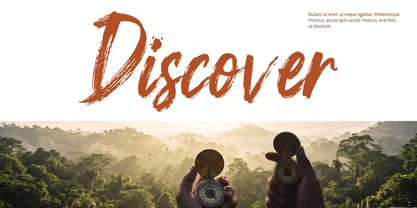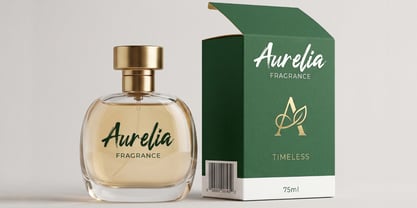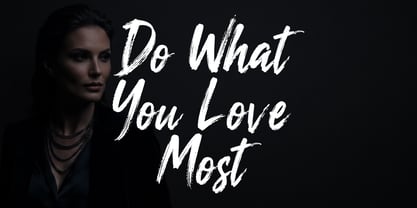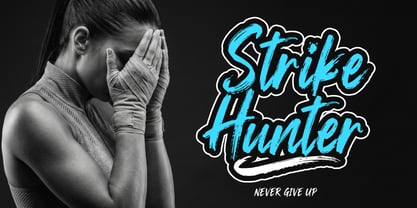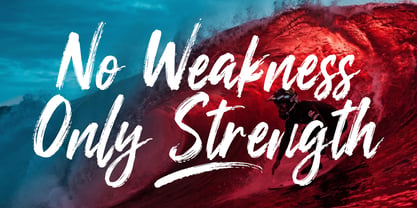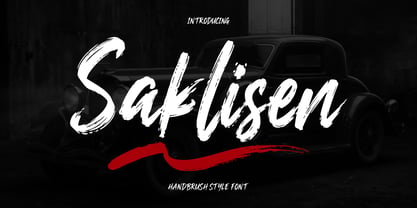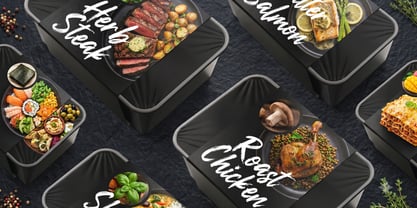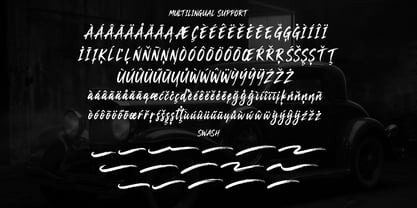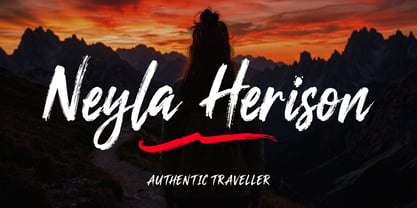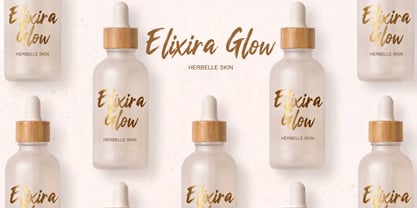
Saklisen
Saklisen – Handbrush Style Font
Saklisen is a bold and expressive handbrush style font designed to capture the raw energy of natural brush strokes. With its strong character, textured edges, and dynamic flow, this font delivers a powerful visual impact while maintaining a stylish and modern feel.
Carefully crafted to mimic authentic hand-painted lettering, Saklisen brings a perfect blend of rugged attitude and artistic elegance. Each stroke feels alive, making your designs more engaging, personal, and full of character.
Whether you're working on branding or creative visuals, Saklisen adds a distinctive handcrafted touch that stands out effortlessly.
Perfect for:
branding, logos, posters, apparel, packaging, social media, quotes, music covers, automotive designs, extreme sports visuals, and more.
Features:
• Uppercase & lowercase letters
• Numbers & punctuation
• Multilingual support
• Swash
• Authentic brush texture
• Bold and energetic strokes
• Perfect for display and headline use
Saklisen is the perfect choice for designers who want to create strong, bold, and expressive designs with a handcrafted brush feel.